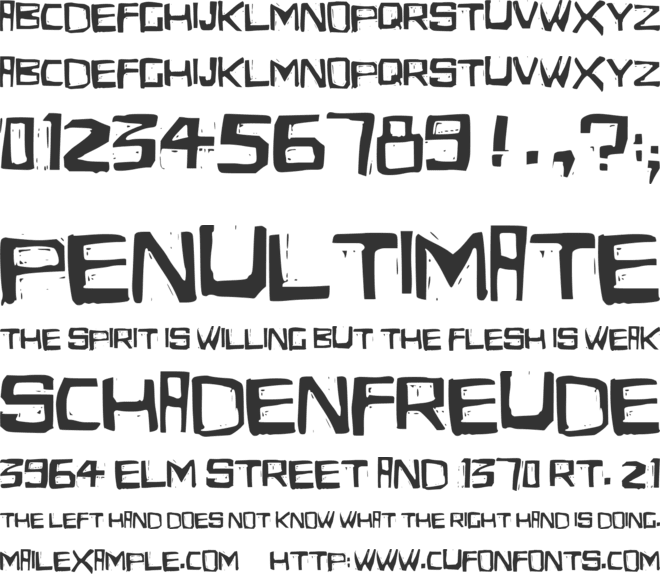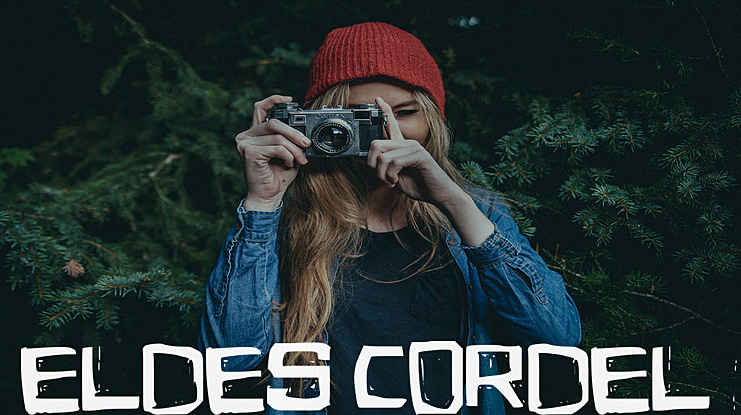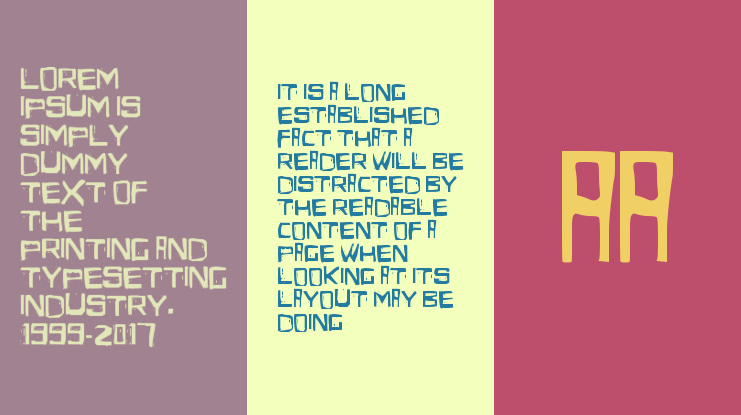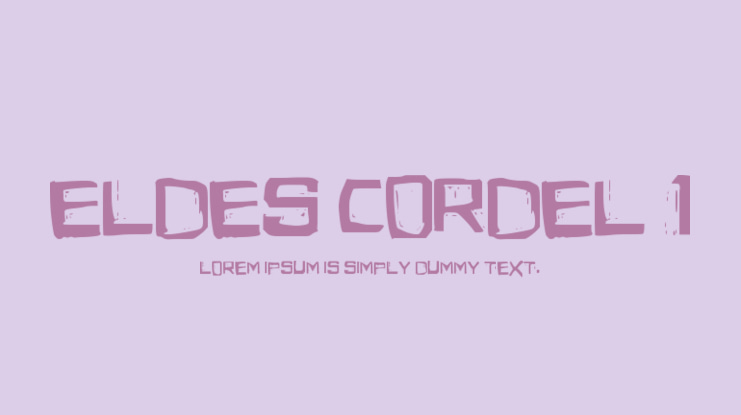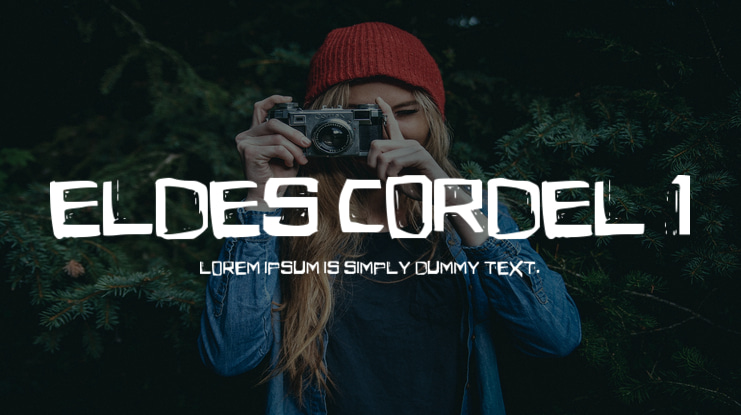
Eldes Cordel 1 Font
Inspired directly in the woodcut - especially in the covers of the Cordel literature leaflets - and created mainly to compose graphic pieces that have the Brazilian culture as reference and or that want to transmit the concept of "handmade", this type brings some of the visual characteristics of such printing technique, such as the gaps and inaccuracies of the notch in the wood matrix.
Inspirada diretamente na xilogravura em especial nas capas dos folhetos de literatura de Cordel e criada principalmente para compor peças gráficas que tenham a cultura brasileira como referência e que queiram transmitir o conceito de feito a mão, esse tipo traz algumas das características visuais dessa técnica de impressão, como as falhas e imprecisões do entalhe na matriz de madeira.